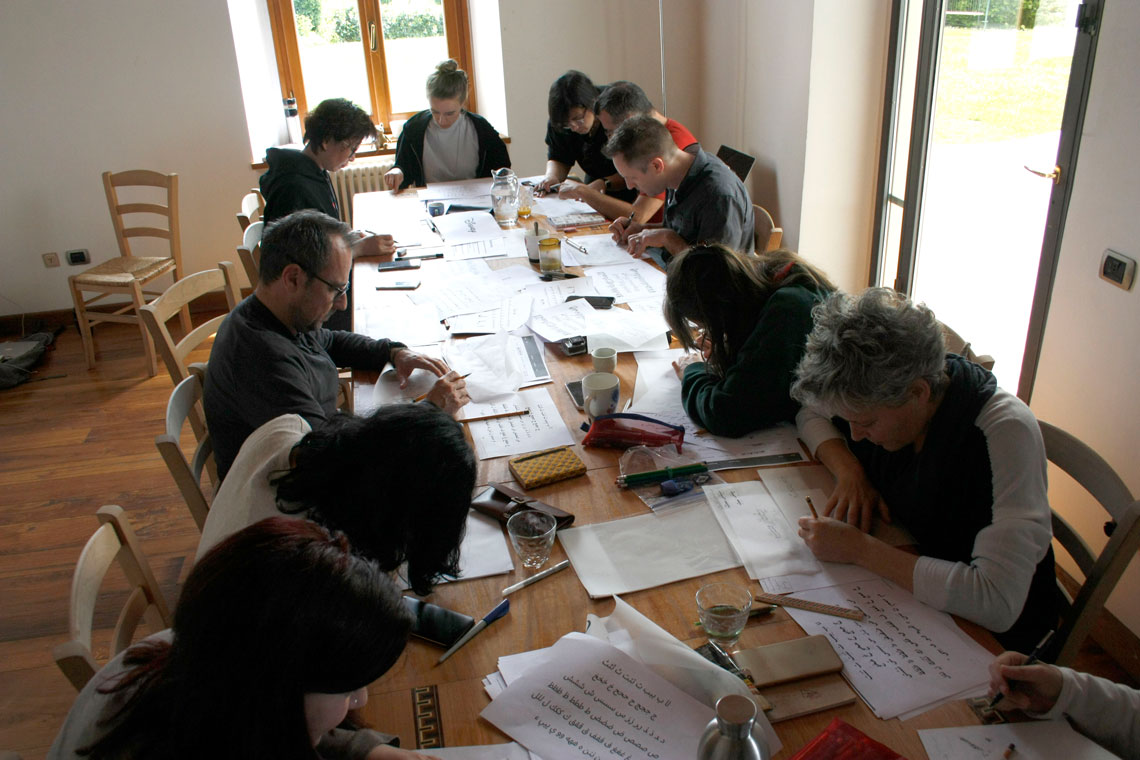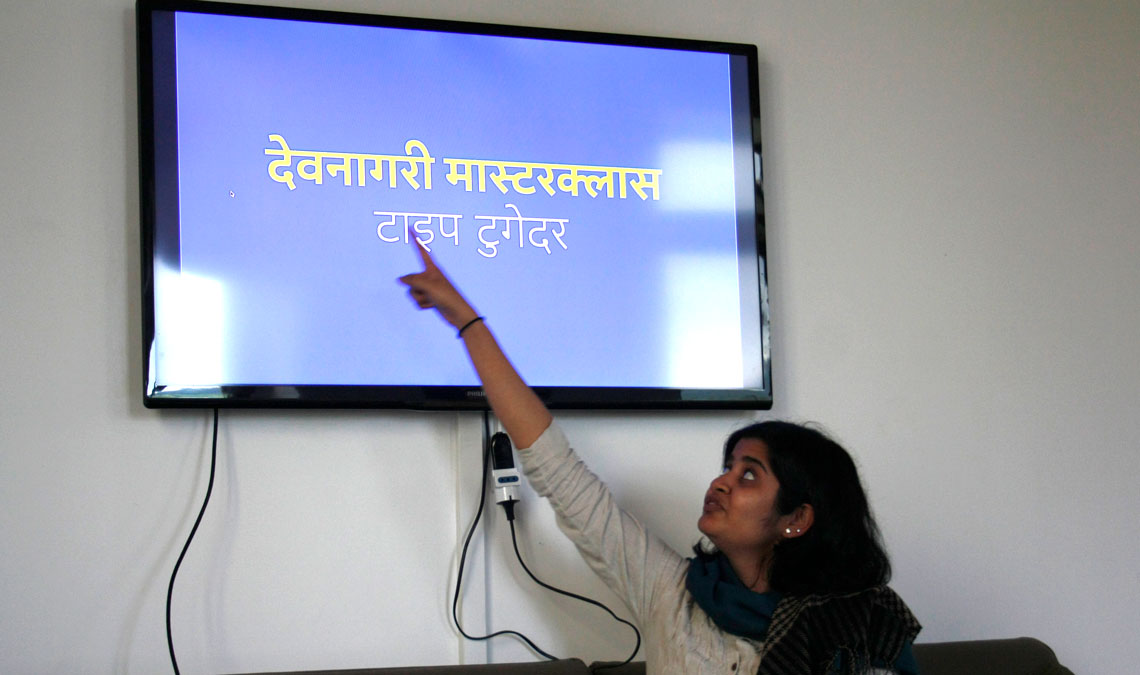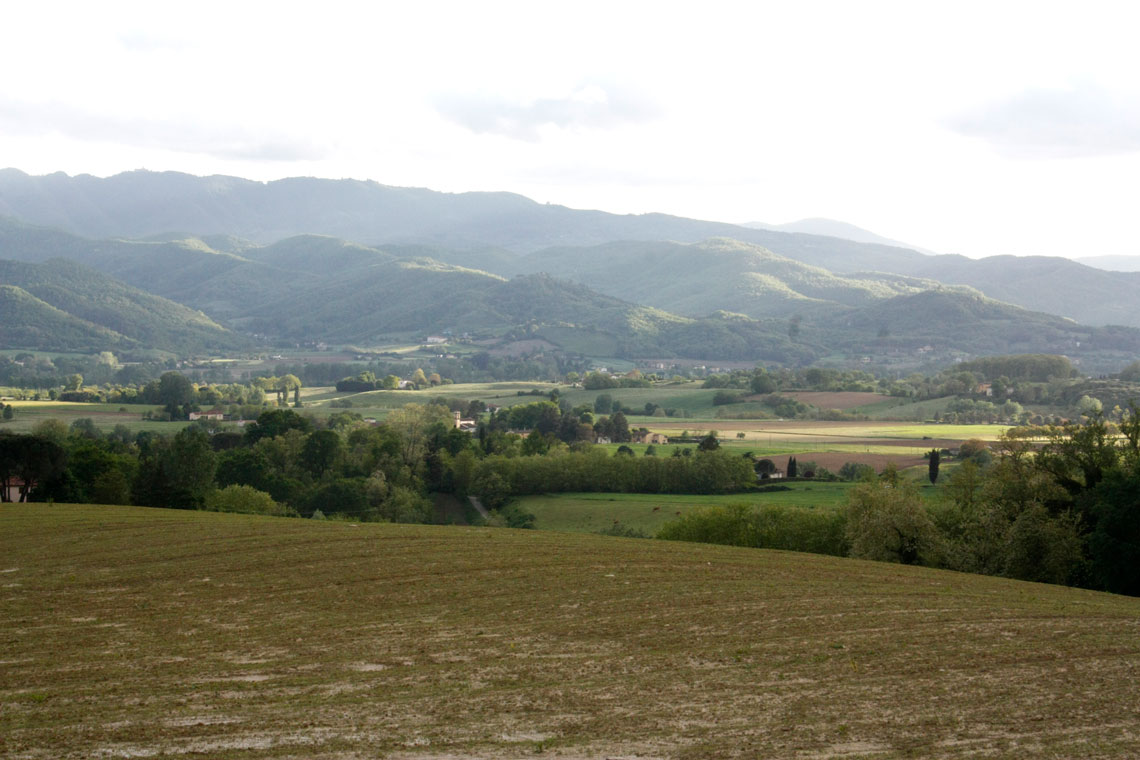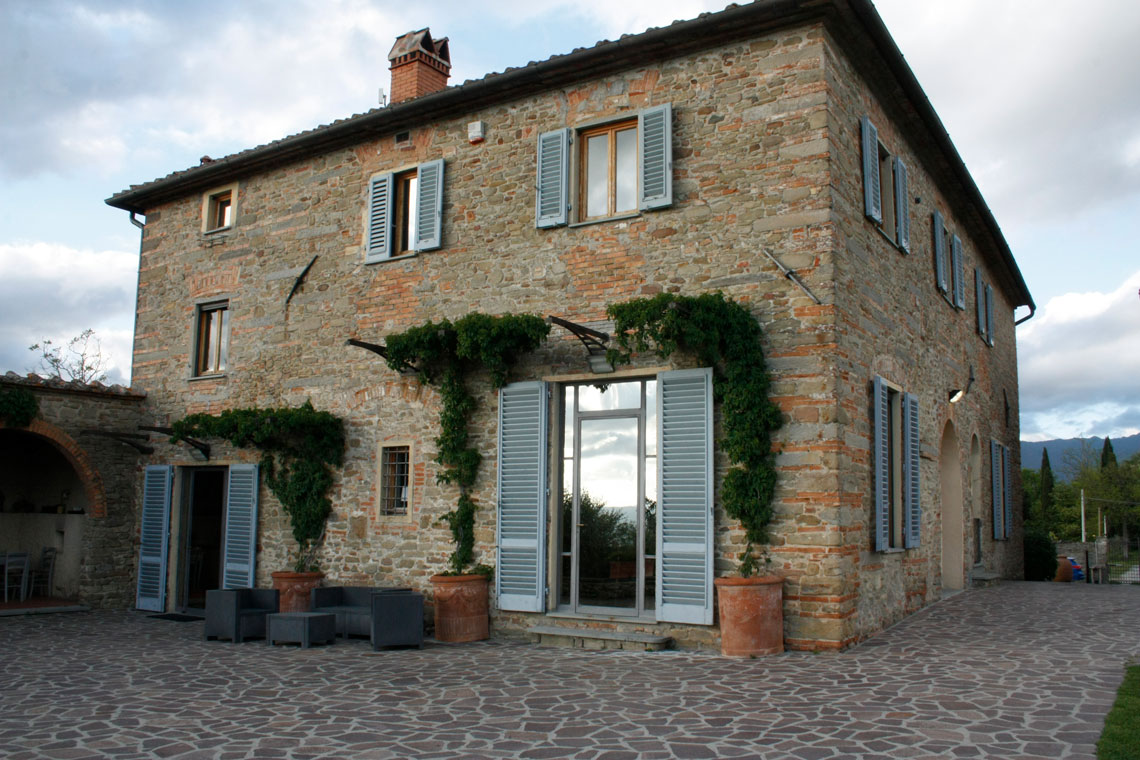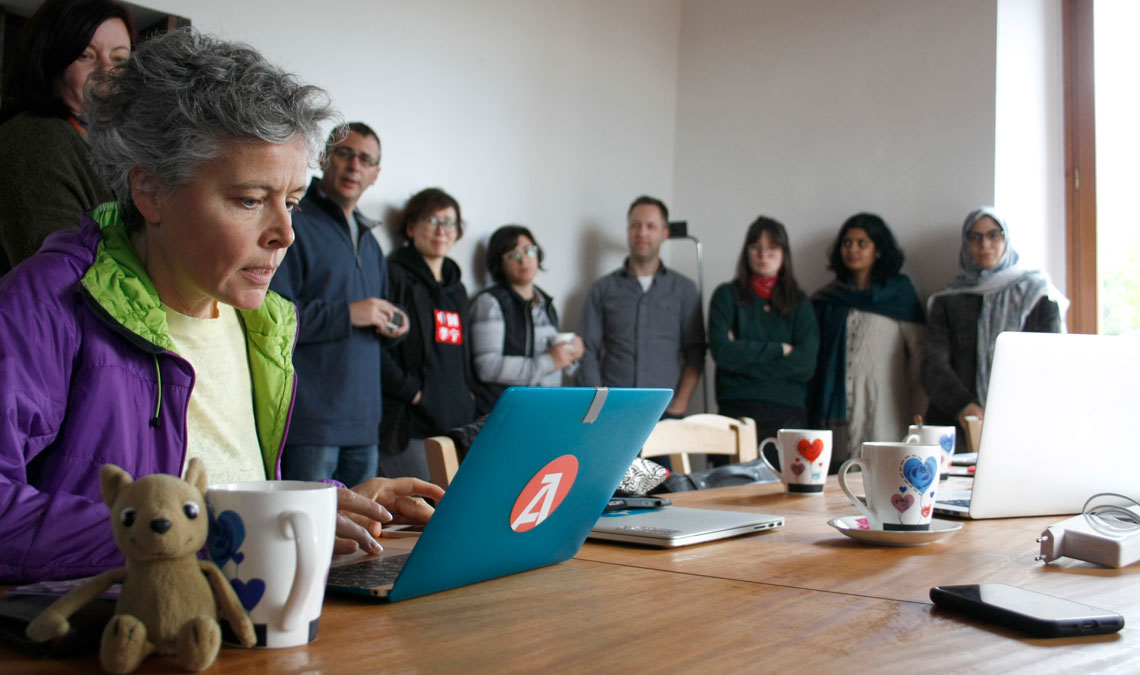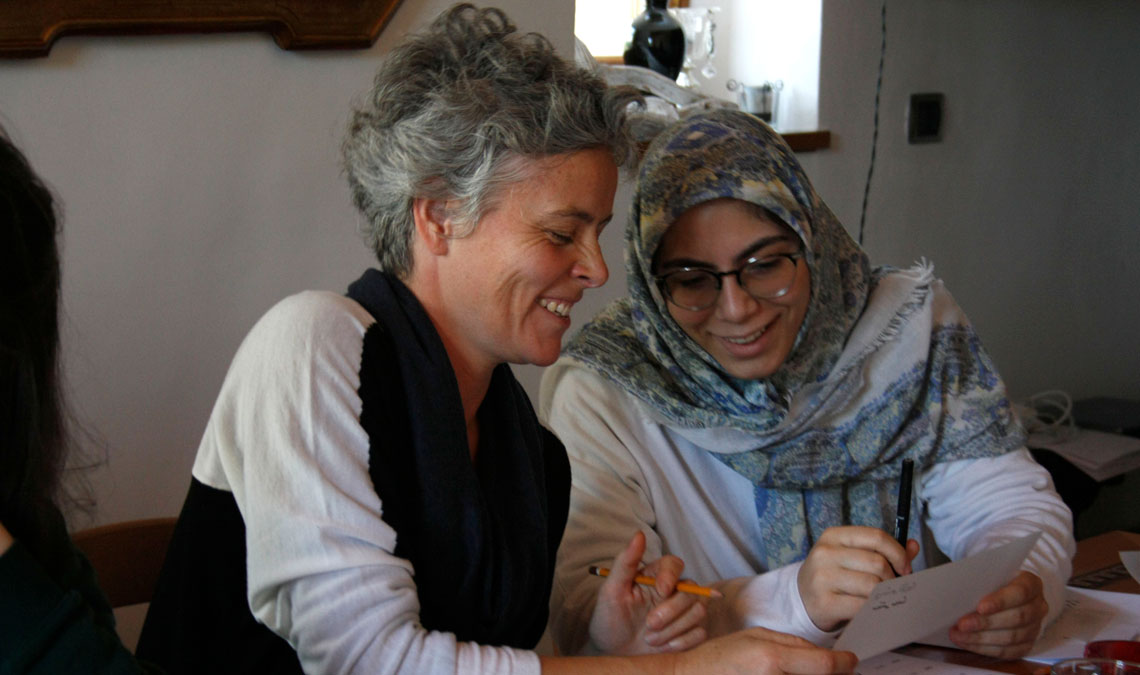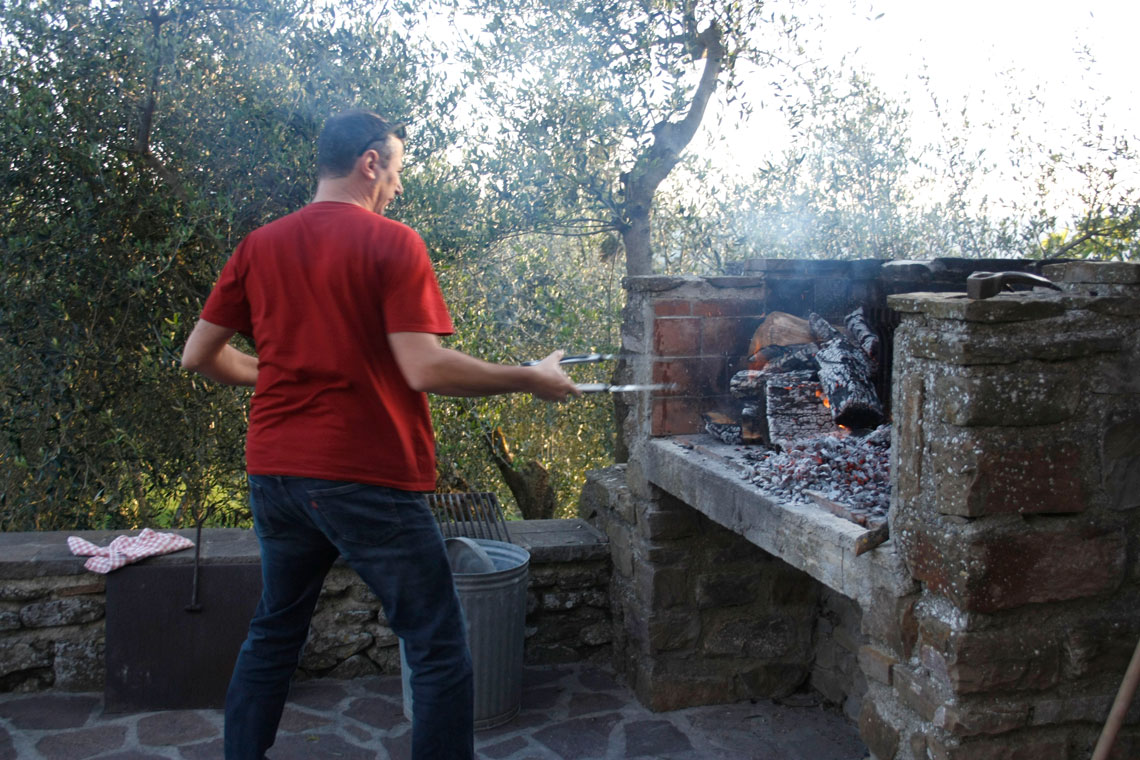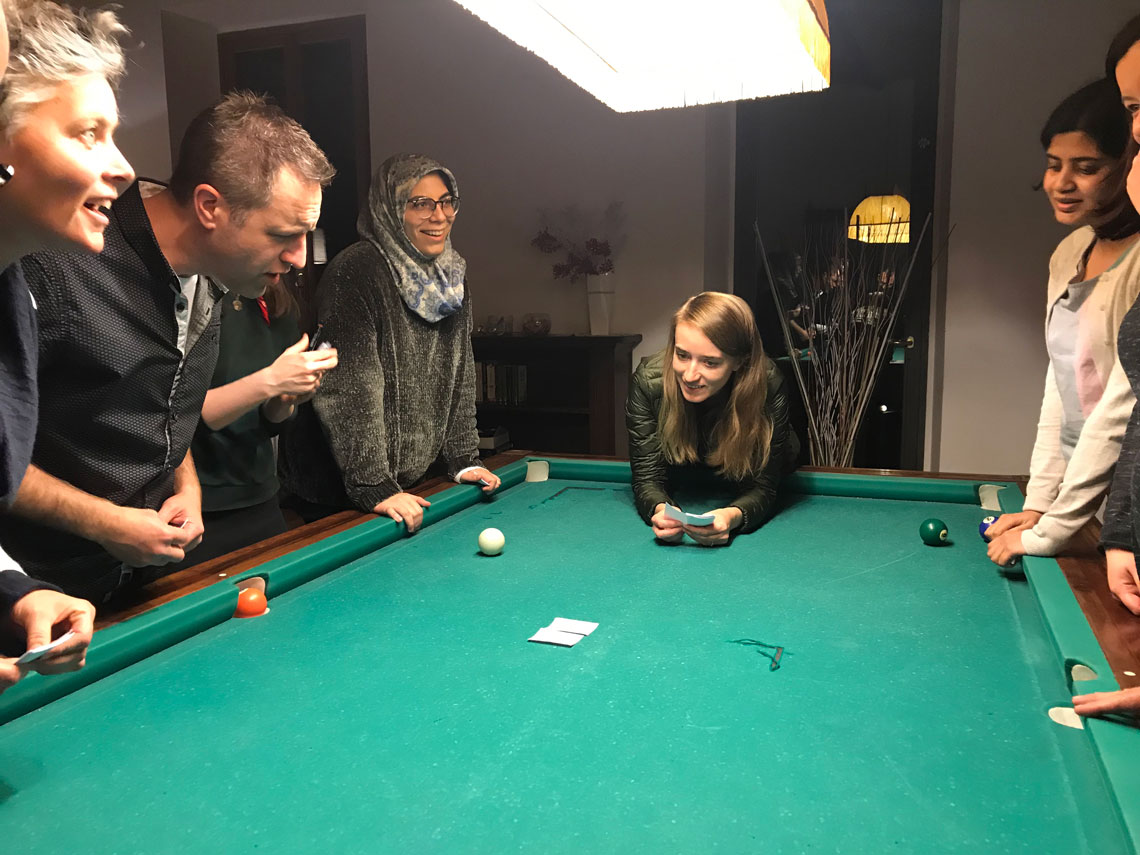
2019 Typographic retreat in Vicchio
Each year the core TypeTogether team reconnects at a work retreat in an invigorating location. This year we enjoyed the mountain views of Vicchio, Italy, about an hour away from Florence.
From Beijing to Kansas City, the TypeTogether team is spread around the globe. We rely heavily on Internet-based tools and a certain knack for keeping track of different time zones to create a fluid and fun collaborative environment.
Every year we organize a one-week gathering in which we all travel to a chosen location to discuss type and typography, learn from each other, and have a ton of fun. This time we travelled to Vicchio, a small town in the heart of Italy’s Tuscan region. We met the 2019 Gerard Unger Scholarship recipient Florian Fecher via a video chat, discussed some of our upcoming releases, had two workshops and a masterclass, and, most importantly, had a great time together as always.
Throughout the week we had discussions about improving workflow, the general focus of the company, ideas to build ongoing relationships, the bright future of the Gerard Unger Scholarship, obscure ’80s political references, upcoming type families, how misunderstanding can fuel humour, and, of all the randomness, searching for ’90s rock bands that used variable technology in their videos.
We scheduled a masterclass on Devanagari by Pooja Saxena and two workshops: variable fonts by Irene Vlachou and Arabic logo matching by Azza Alameddine.
On the first day of our annual get-together in Vicchio, Pooja’s masterclass gave insight into the Devanagari script and how that impacts the creation and production of such a complex written language. Though the discussion began with looking at vernacular lettering on signs and in books, it got real deep real quick as we talked about conjunct combinations, best practices, encoding, and future Devanagari designs. Favourite new word: halant, the vowel-killer, shown with a slashed stroke, that is infinitely harder to design than at first imagined.
Azza began her workshop with an overview of Arabic writing styles, their history and use, and the current state of Arabic logo design, especially in multiscript application. She then had us choose a well-known logo, find the closest Arabic script that matched the historic use and tone, and create the Arabic counterpart ourselves. Finally, we matched the visual appearance of the logo by refining its weight, contrast, and width. It was obvious to see how we all advanced from general knowledge to practical application and fine-tuning — an eye-opening exercise we all enjoyed.
Irene’s variable font workshop began with an update of advances over the past few years, the format’s capabilities, and its exciting and somewhat unknown future. We continued by sketching ideas on paper to work out the design space logistics without resorting to the “boring normal, but official” axes of weight, width, optical size, italic, and slant. (It can be tricky!) Then we created the necessary masters to bring it to life. Several trials later, everyone had a perfectly functioning typeface with over 500 glyphs. Or something like that. Maybe.
Italy was of course beautiful and our villa supplied jealousy-inducing views, comfortable common areas for spontaneous conversations, and the seclusion necessary to make headway on projects. Speaking of, we have some incredible work coming up. We’ve cemented the rest of the year and made solid plans for the next 18 months. You can expect expansions, new work targeted for specific categories, and continued educational content.